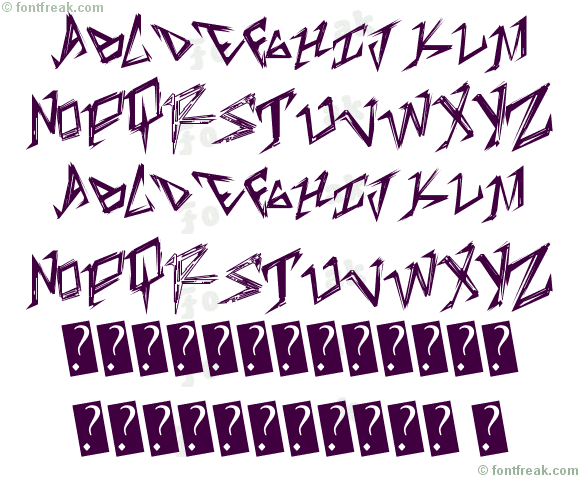
TableShank
About TableShank
TableShank, designed by XEROGRAPHER FONTS in 2012, is an eye-catching display font that captivates with its unique and edgy aesthetics. This font falls under the decorative category, characterized by its sharp, angular strokes and unconventional shapes. The stroke weight varies throughout, offering a bold, dynamic appearance that commands attention. The contrast between thick and thin lines creates a striking visual impact, making it ideal for designs that require a strong, memorable presence. The spacing is intentionally tight, enhancing its aggressive style while remaining legible.
TableShank is perfect for a range of creative applications. Its bold nature makes it an excellent choice for movie posters, particularly those in the horror or action genres, where an intense atmosphere is key. It can also elevate the design of album covers, providing a distinct flair that resonates with music lovers. For branding efforts, small business owners can leverage TableShank in promotional materials, giving their products a distinctive edge. Additionally, its unique style can complement graphic designs for skate brands or extreme sports events, appealing to a youthful, adventurous target audience. Content creators looking to make an impact on social media can also utilize this font for attention-grabbing graphics.